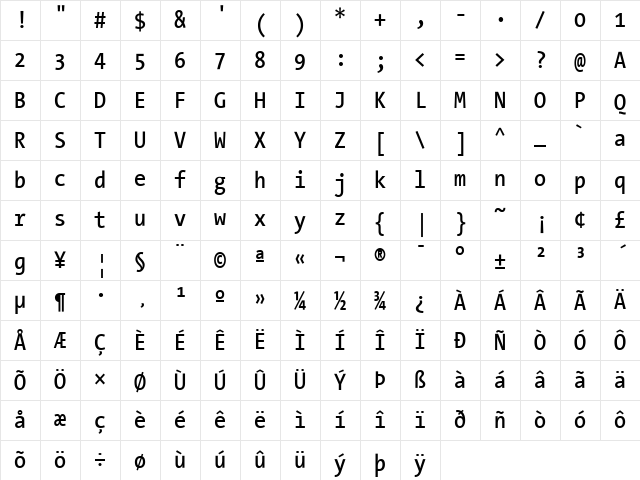
The Sans Mono Condensed- Regular Free Font
The Sans Mono Condensed- Regular
Foundry: Luc as de Groot
Design Context for The Sans Mono Condensed-
The Sans Mono Condensed- uses fixed-width spacing throughout, giving it the structured, systematic character associated with coding environments and technical documentation.
Pro Tip: Use The Sans Mono Condensed- with slightly increased line-height for extended reading - fixed-width spacing can feel dense in longer passages without extra breathing room.
Who designed the The Sans Mono Condensed- Regular font?